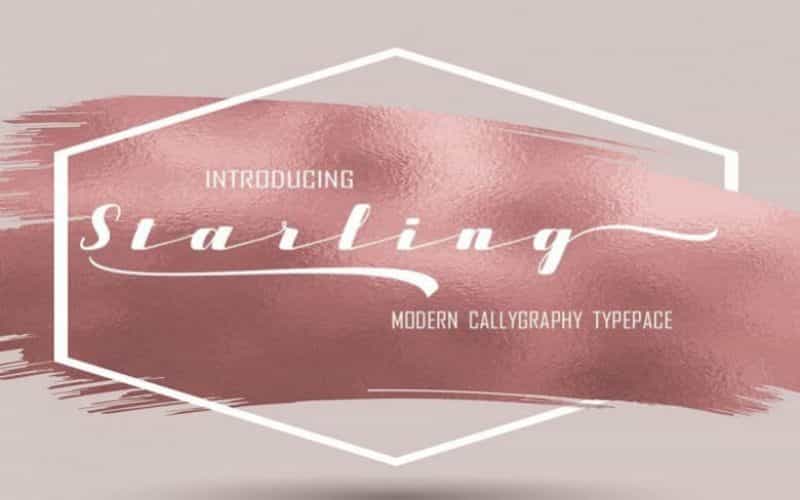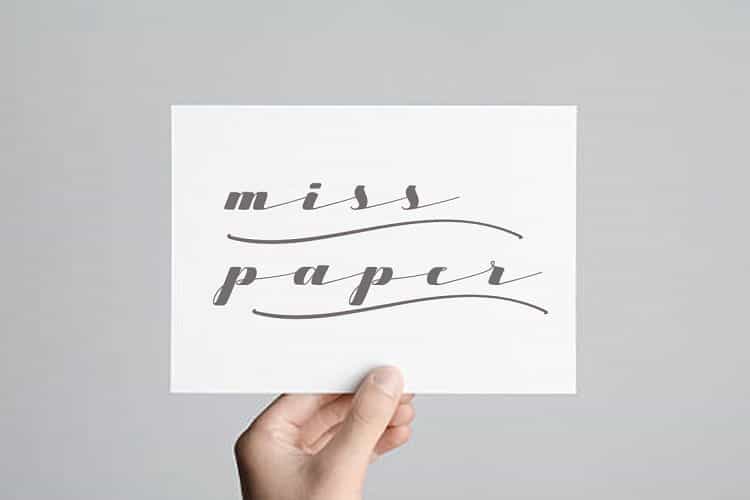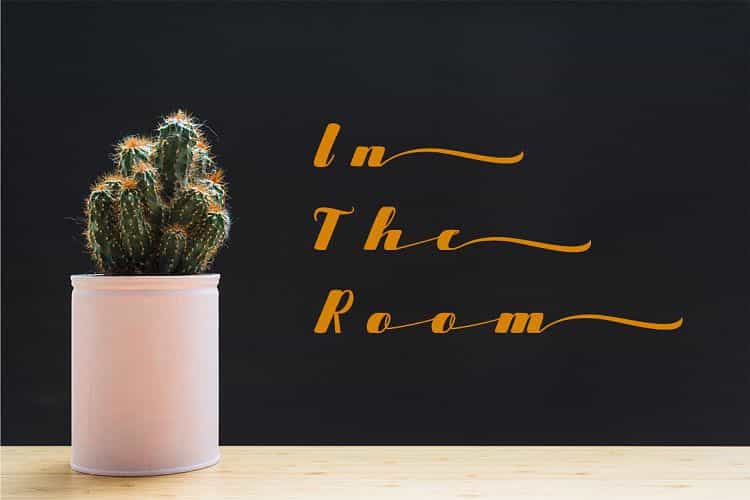
Starling Modern Calligraphy. This font was written by hand, and it has a contemporary and unique forms of calligraphy, the writing style is very natural.